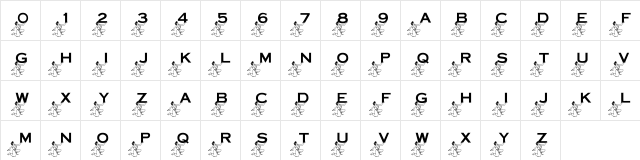
LMS Power In Your Corner Now Regular
Design Context for LMS Power In Your Corner Now Typeface
LMS Power In Your Corner Now has the bold swagger of sports branding: strong, assertive letterforms designed to dominate headlines and jerseys alike.
A natural choice for gym brands, fantasy sports, jersey lettering, and action-driven headlines.
Font Pairing: Use alongside a condensed or geometric sans for supporting copy — keep the pairing bold, functional, and free of ornament.
Pro Tip: Use LMS Power In Your Corner Now in all-caps headlines where its athletic energy can fully express itself. Pair with a solid, simple sans for supporting text.